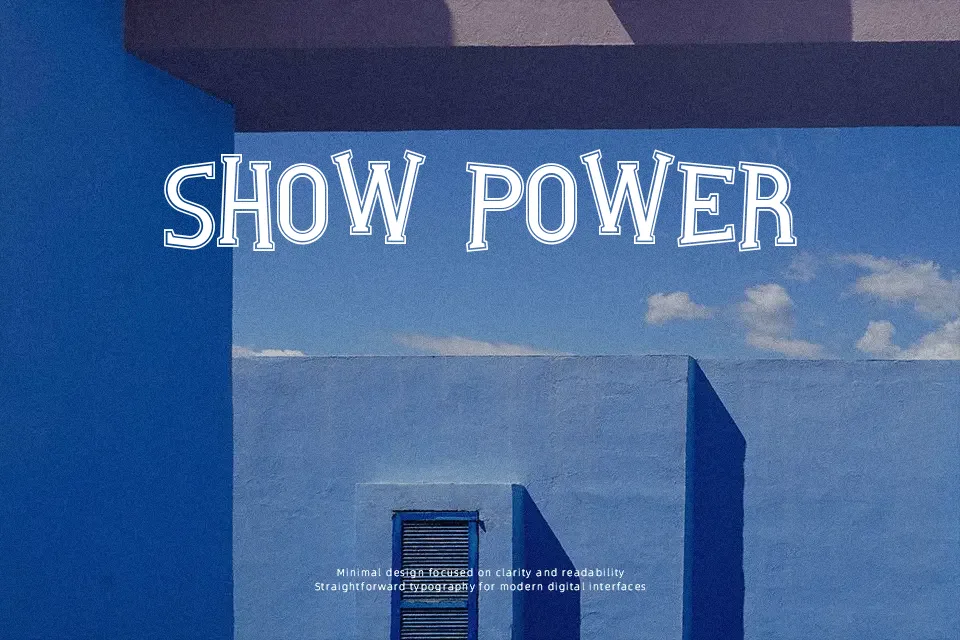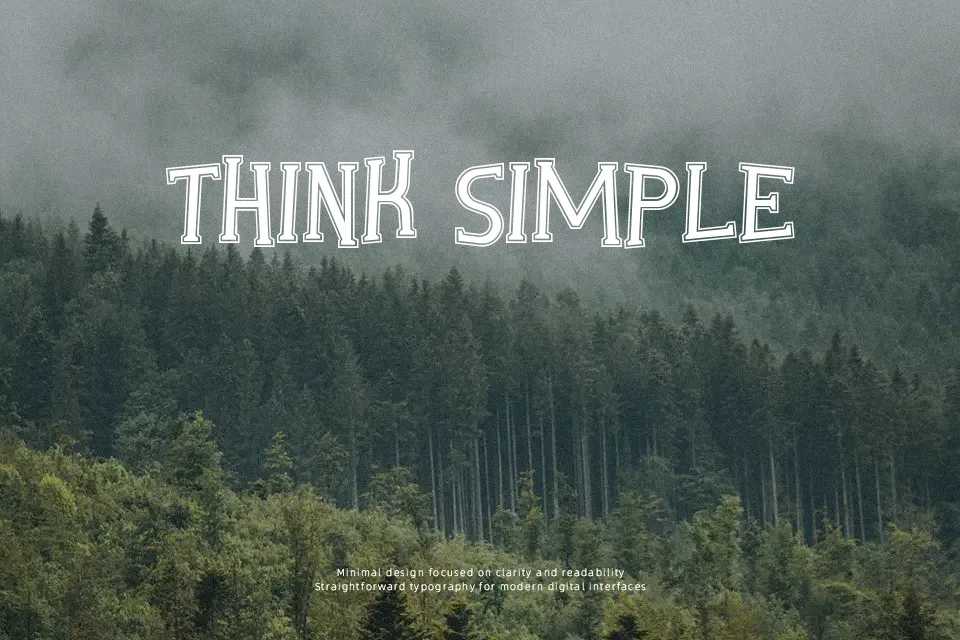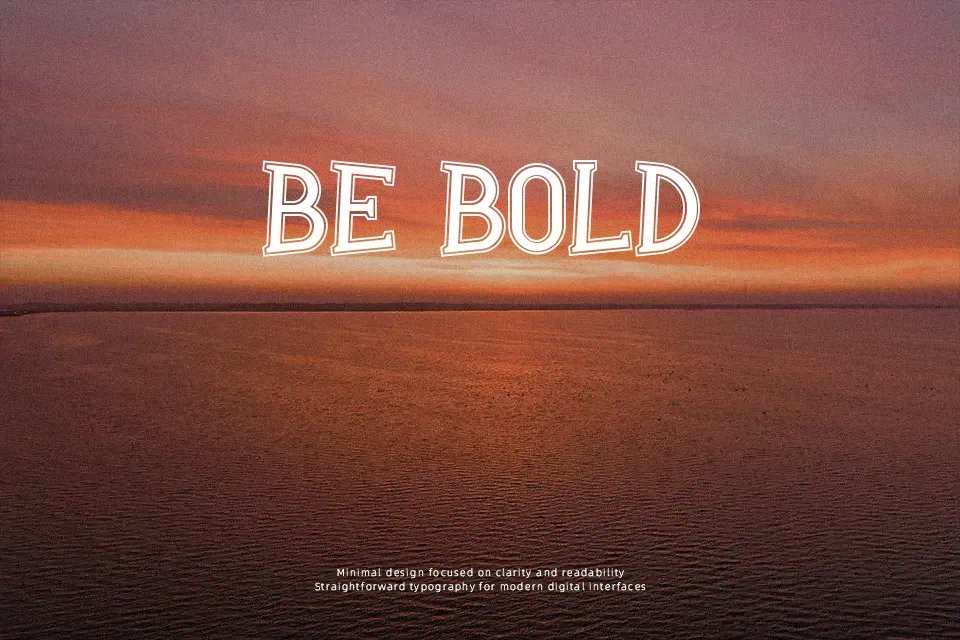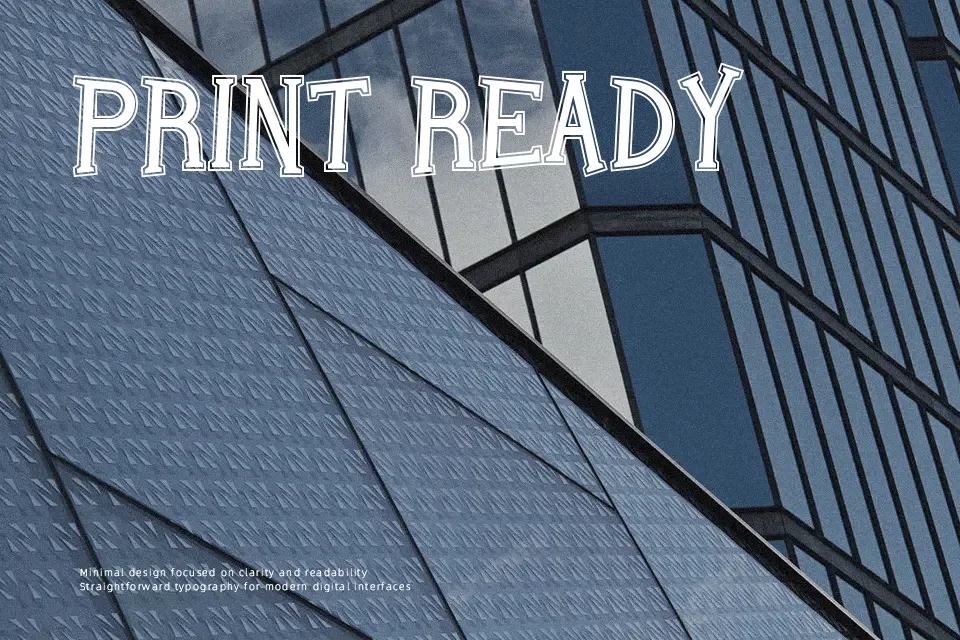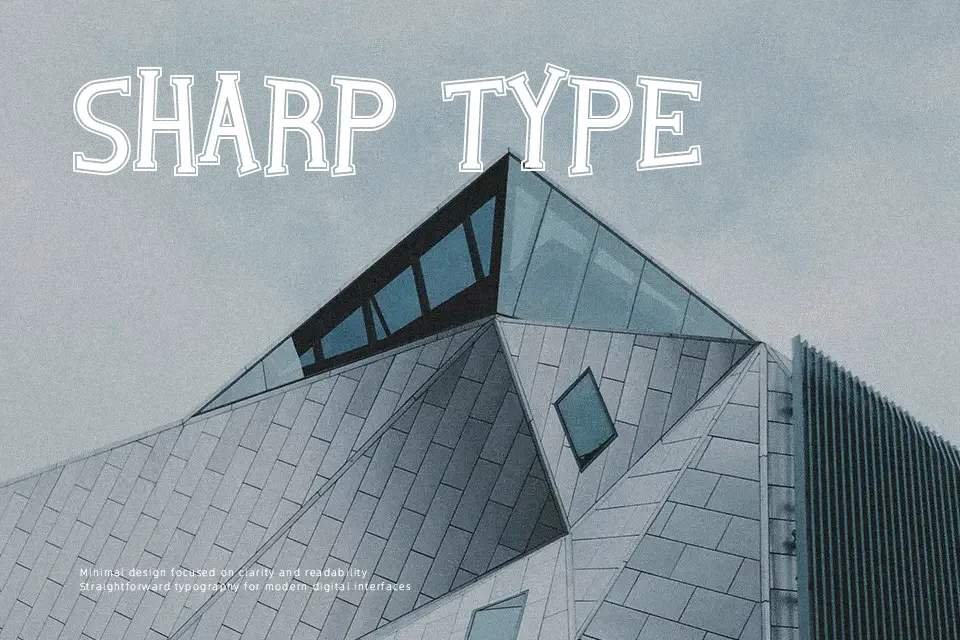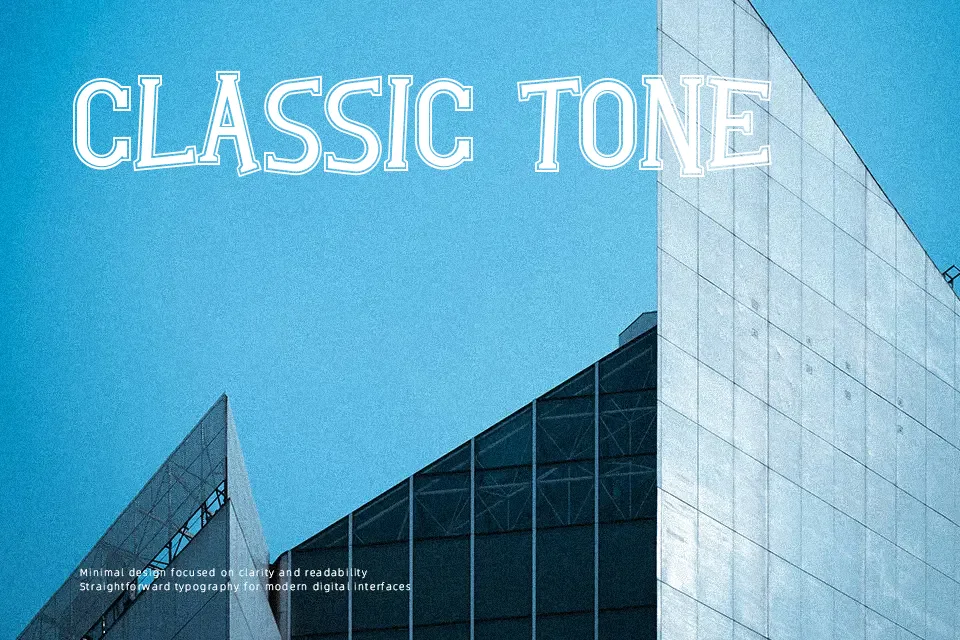
Bouncy Campus Font
Designed by Noah Type
Bouncy Campus is a decorative display font that mixes an old-school college look with soft, rounded strokes and uneven baseline movement, so the letters feel like they’re in motion rather than locked to a grid. Strokes are bold and fairly uniform, counters stay open, and spacing is tight enough to create a compact, poster-style rhythm. The overall impression is casual and energetic, closer to playful sports lettering than formal varsity block type, which makes it engaging for youth audiences but too loud for body copy. It works well when you want a headline to shout “school spirit” or “kids’ fun,” but it can look out of place in serious editorial layouts or clean corporate branding.
school event posters and banners
kids and youth gaming titles
playful sports or campus-themed logos
fun social media graphics for students
long paragraphs or body text
formal corporate branding systems
minimal, quietly styled interfaces
serious editorial or academic layouts
Perfect for gaming, kids, and logo, with a artistic and decorative style.